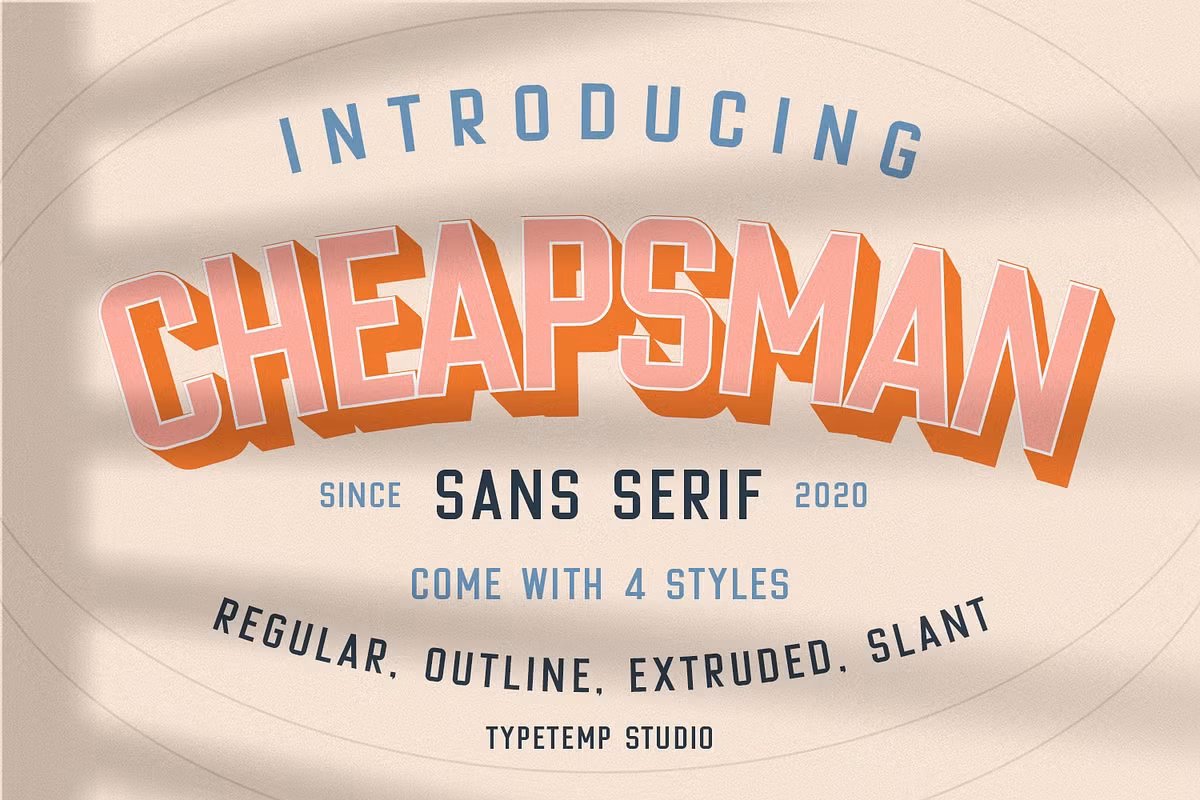
Please note that you must purchase this font for commercial use. You can download Cheapsman Sans Serif Display Font for free, strictly for personal testing purposes only. Cheapsman is a bold and striking sans-serif display font designed to make a statement. With its clean, modern lines and geometric form, Cheapsman Font Free Download is perfect for high-impact headlines, logos, posters, branding, and any design that requires a strong, contemporary aesthetic.
The font offers a contemporary feel while maintaining excellent readability, making it suitable for both large and small-scale designs. It includes uppercase and lowercase letters, numerals, punctuation, and multilingual support, ensuring versatility for global design projects.
Whether you’re designing a modern brand identity, creating eye-catching promotional materials, or working on digital content, Cheapsman brings bold style and clarity to your typography.